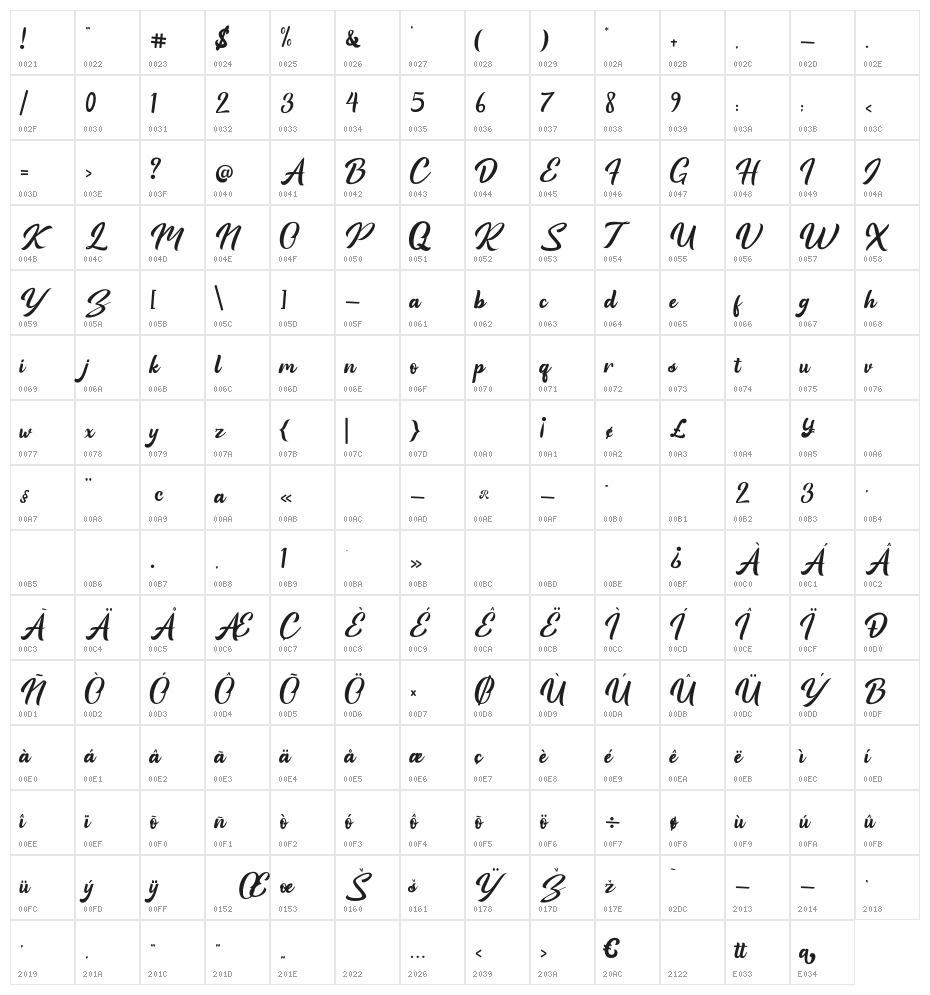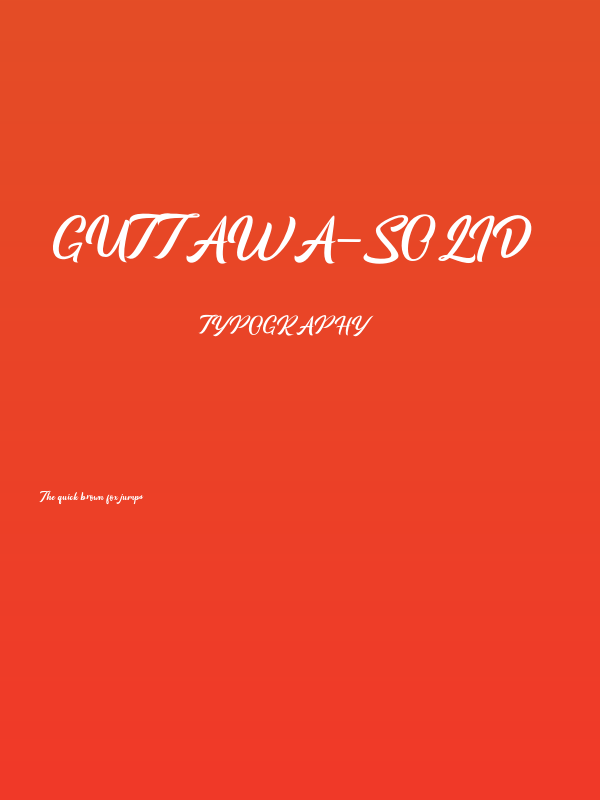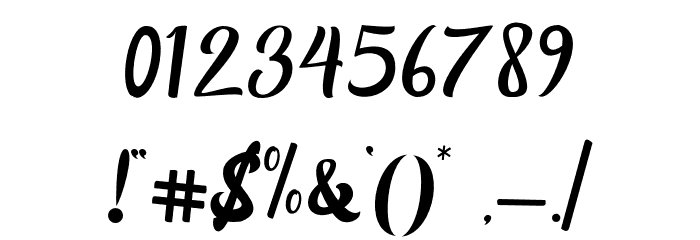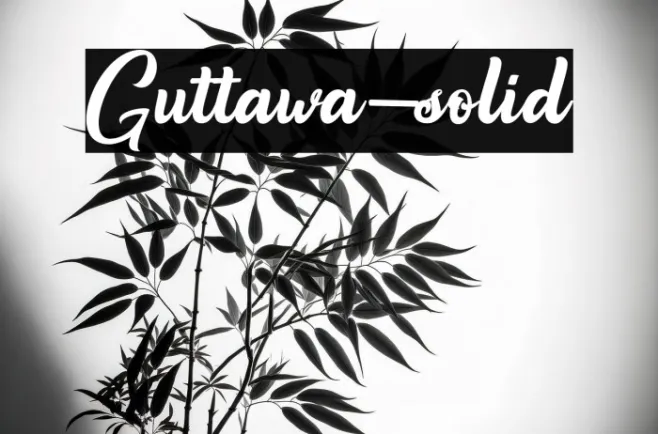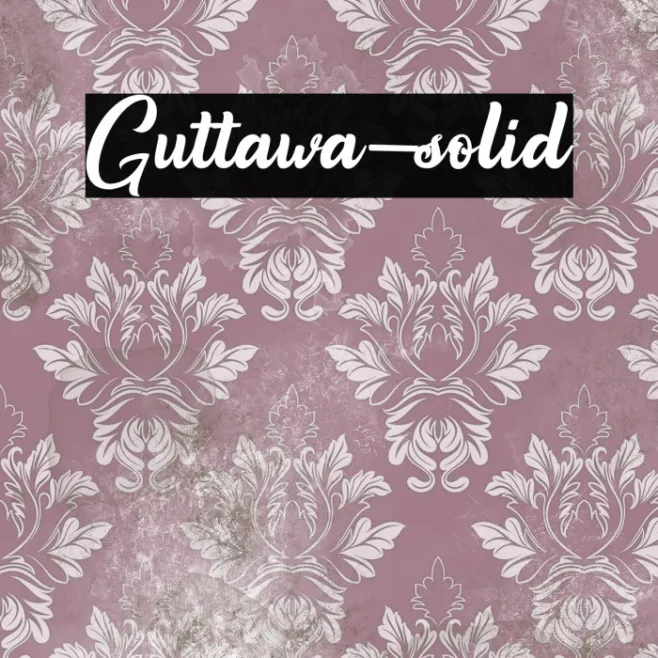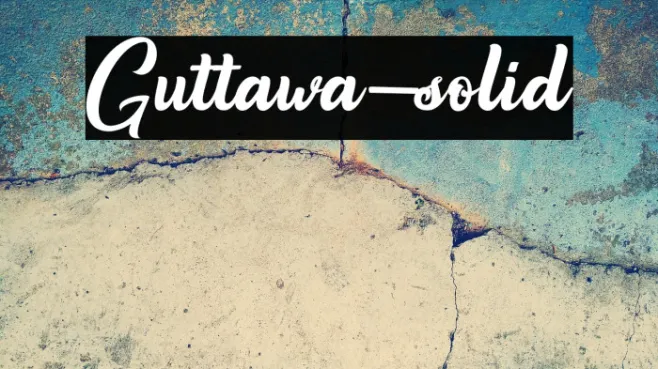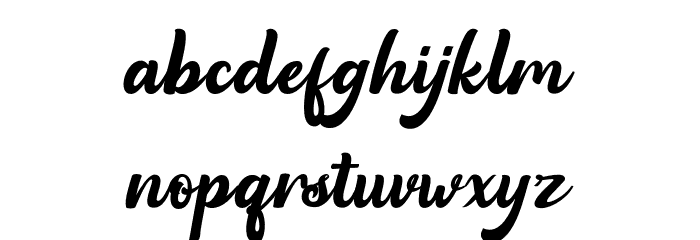
Guttawa-solid Font
Guttawa-solid Description
This font features a bold, flowing script style that exudes elegance and sophistication. The uppercase letters are characterized by sweeping curves and a sense of fluidity, while the lowercase letters maintain a consistent, smooth flow. The numerals are equally stylish, with a touch of flair that complements the overall design. Special characters are thoughtfully integrated, maintaining the font's cohesive aesthetic. The font's boldness and dynamic strokes make it ideal for creating impactful and memorable designs.
| Use Case | Logos, Invitations, Headlines |
| Proposed Projects | Ideal for wedding invitations, branding, logo design, and elegant signage. |